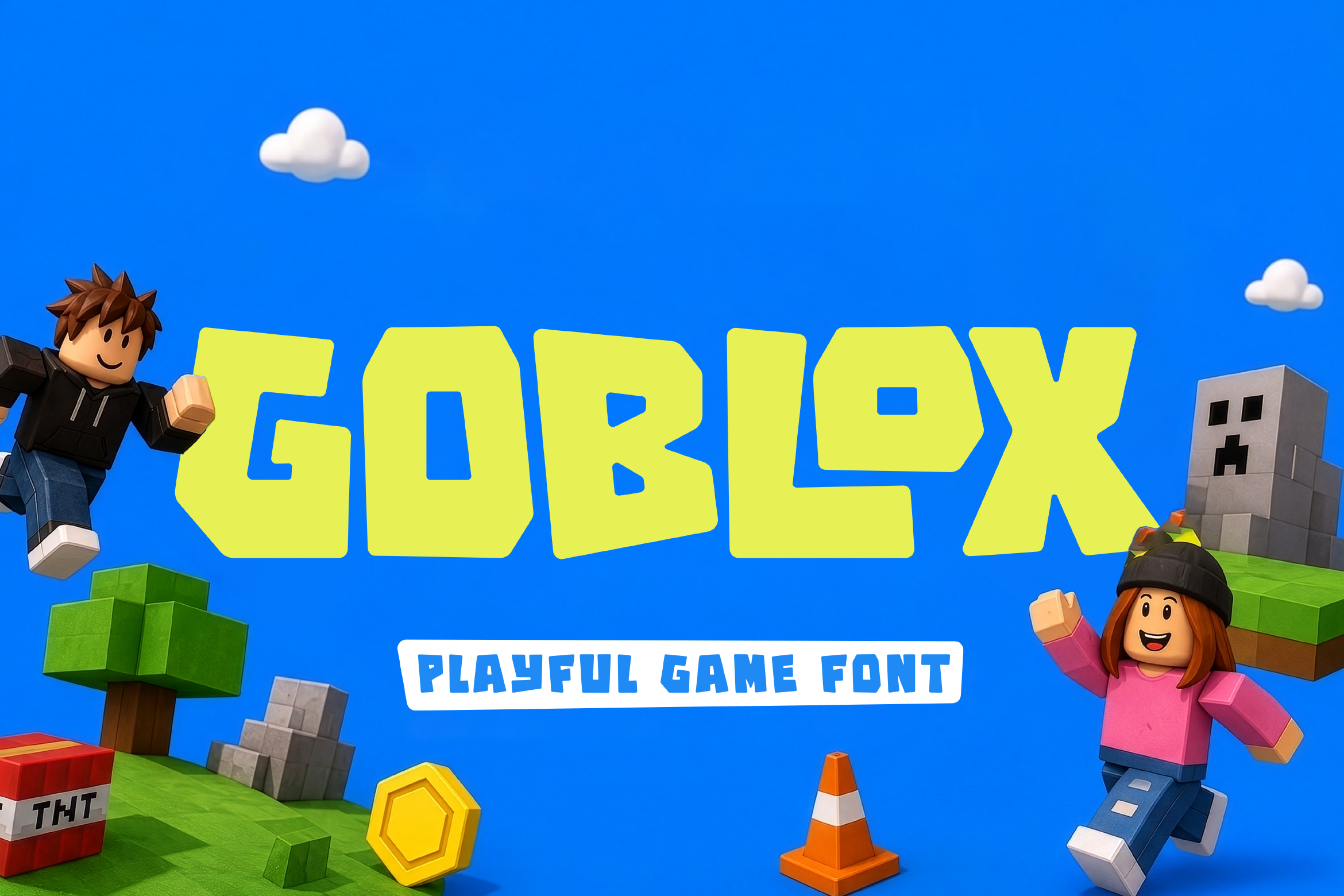
Goblox Fun Game Display Font
Goblox is a bold playful game font inspired by fun gaming visuals and kids-friendly typography. Featuring chunky geometric letterforms with a strong energetic style, this font is designed to make your titles stand out in game-themed projects, children branding, and creative digital content.
Its unique blocky shapes and playful character make it perfect for gaming posters, Roblox-inspired designs, YouTube thumbnails, toy branding, esports graphics, and fun merchandise. Goblox combines a modern game aesthetic with a cheerful and approachable look that works great for both kids and gaming audiences.
All Caps
Alternate Characters